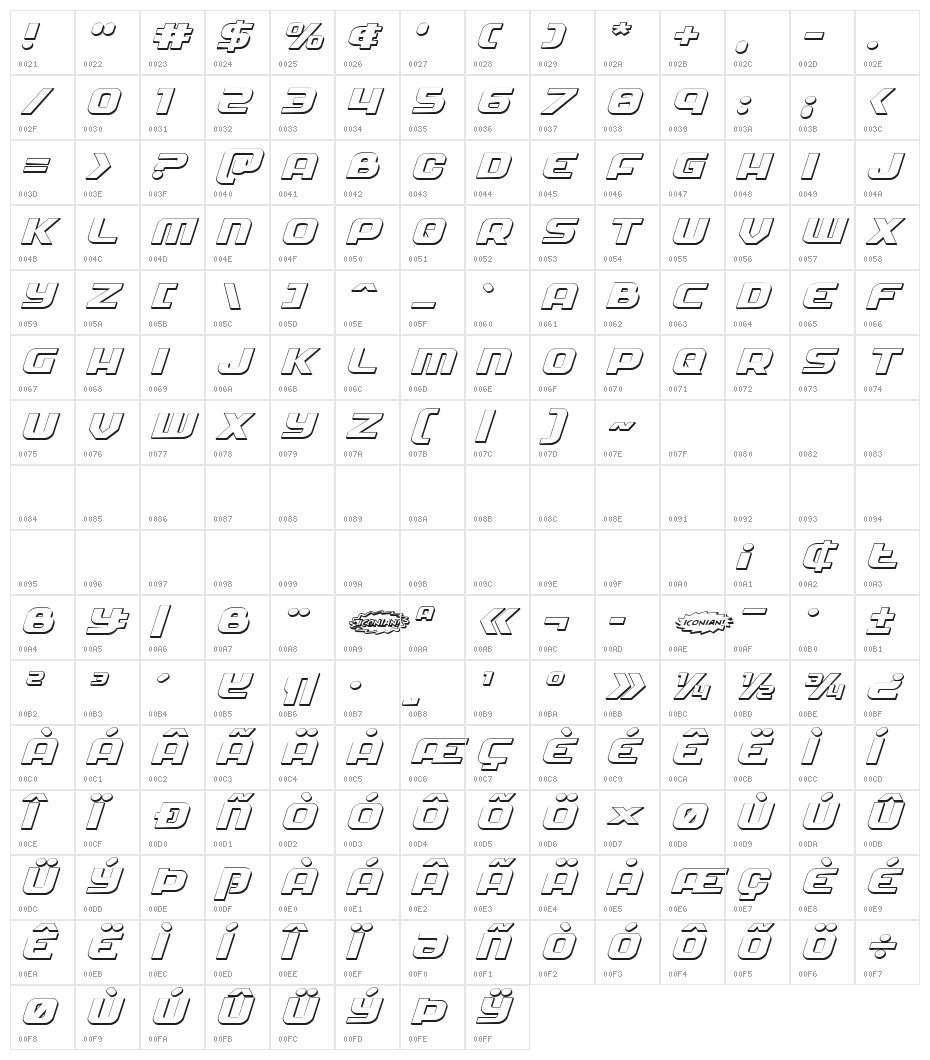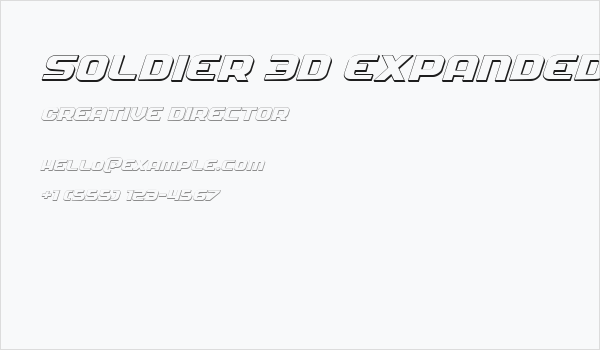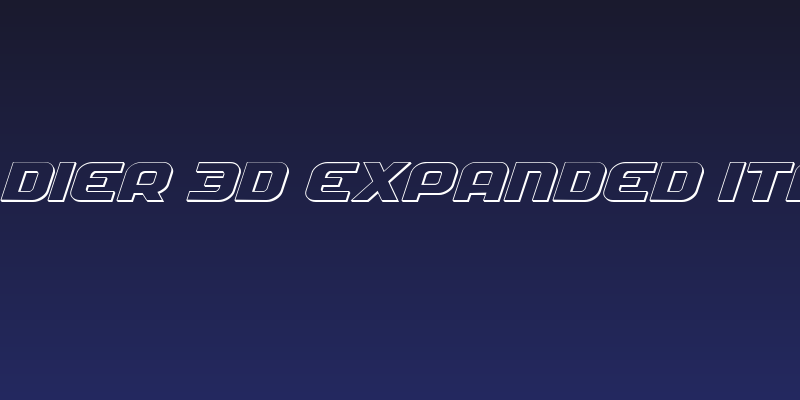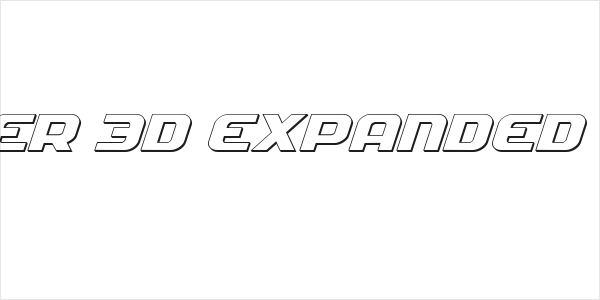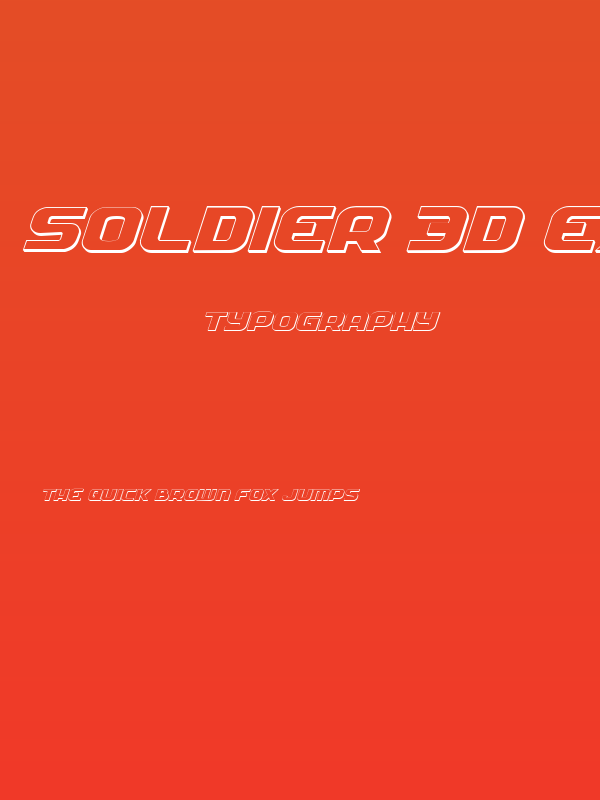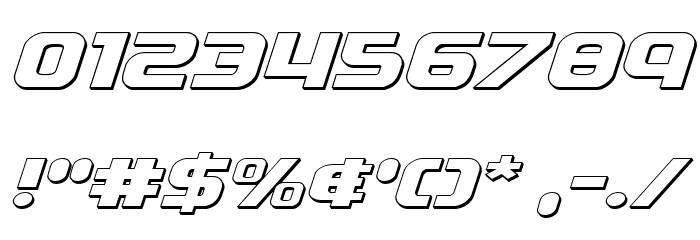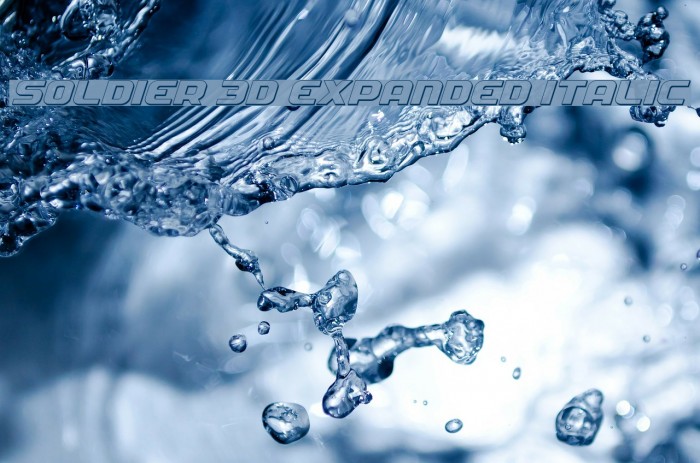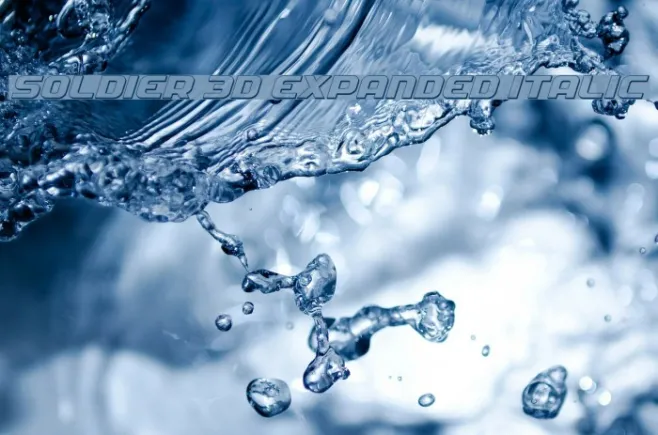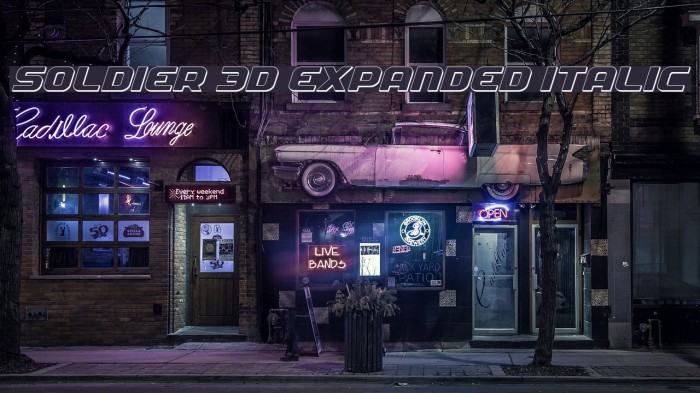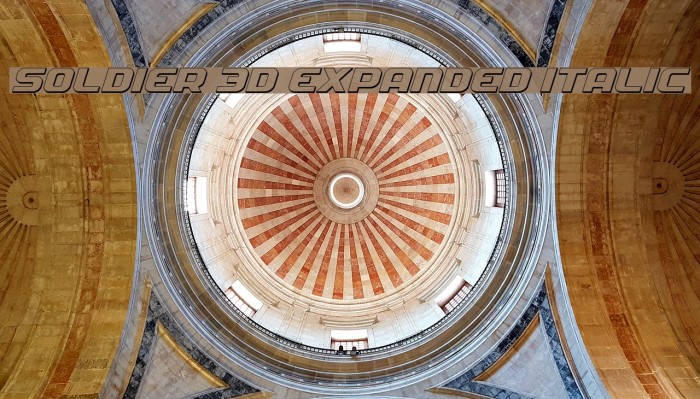
Soldier 3D Expanded Italic Font
Soldier 3D Expanded Italic Description
This font features a bold, three-dimensional appearance with an expanded and italicized style. The characters are outlined, giving them a futuristic and dynamic look. The design incorporates sharp angles and clean lines, creating a sense of movement and depth. The uppercase and lowercase letters maintain a consistent style, while the numerals and special characters complement the overall aesthetic. This font is ideal for projects that require a modern and striking visual impact.
| Proposed Projects | Ideal for video game titles, sci-fi movie posters, tech branding, and dynamic logos. |